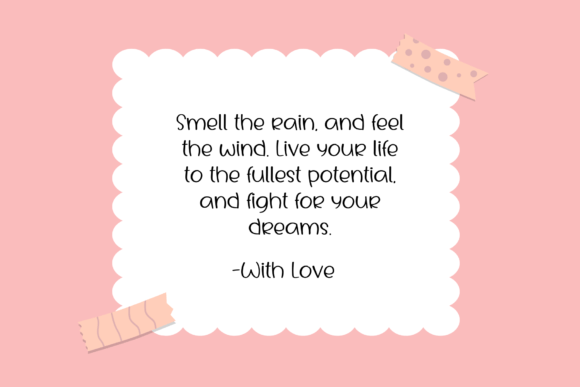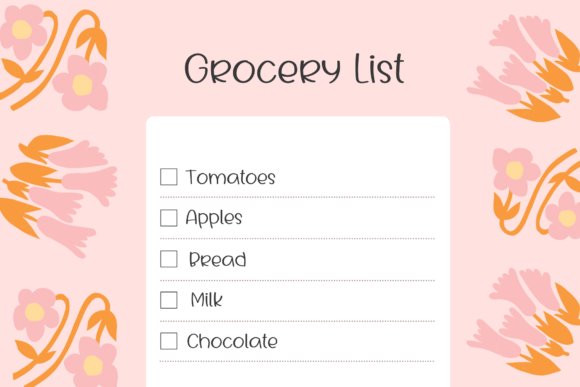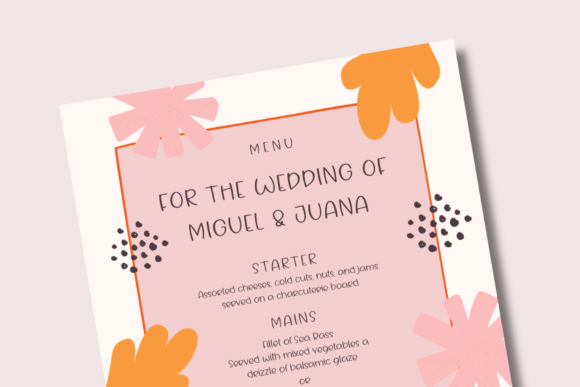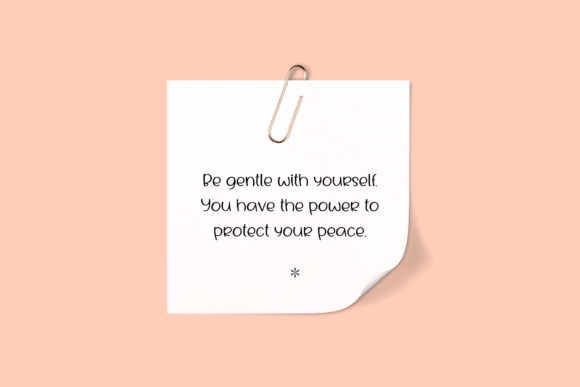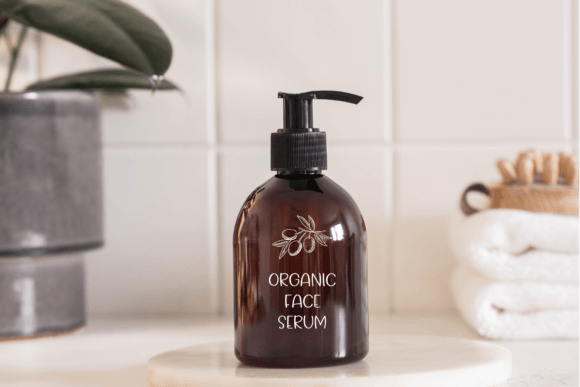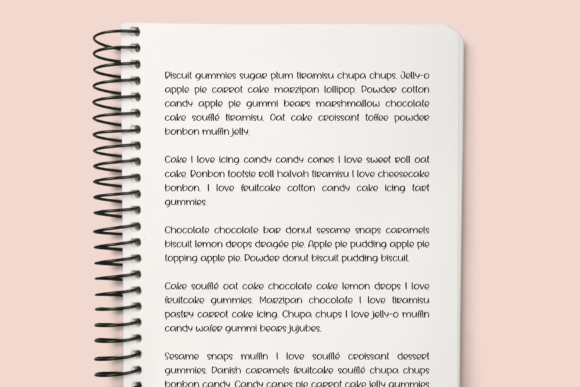
Introduction to Smashing Grapes Font Font
Fonts play a crucial role in design, and the Smashing Grapes Font font is a typeface that brings both character and versatility to any project. Whether you’re working on a branding project, a website, or a print design, the Smashing Grapes Font font offers a unique style that can elevate your work.
| 👤 Author | Cotton White Studio |
Smashing Grapes is a delicate handwritten font.
You can use it to jazz up your digital planner, journal, invitations, note-taking, or anything that requires a handwriting look .
Key Features of Smashing Grapes Font Font
Why Choose Smashing Grapes Font Font?
The Smashing Grapes Font font is more than just a typeface – it’s a design tool that helps you communicate your message with style and clarity. Its unique character set and versatile design make it suitable for a wide range of applications, from elegant invitations to bold headlines.
With its carefully crafted letterforms and balanced proportions, the Smashing Grapes Font font ensures readability and visual appeal across all mediums.
What makes Smashing Grapes Font font special?
The Smashing Grapes Font font stands out with its unique design, exceptional readability, and versatility across various design applications.